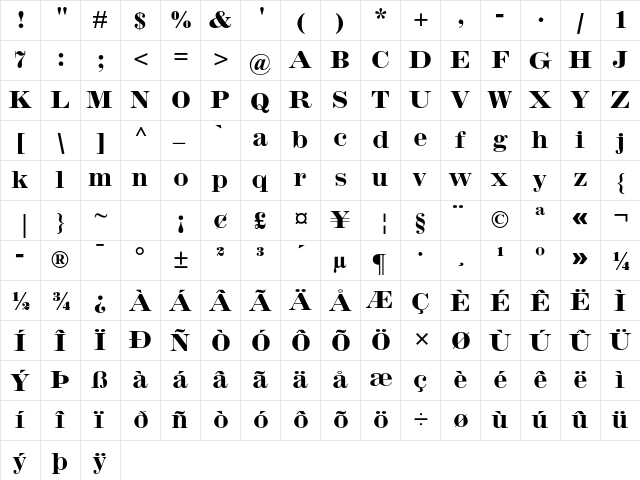
Inflex MT Std Bold Font Preview
Inflex MT Std Bold
Design Context for Inflex MT Std Typeface
Inflex MT Std takes a measured approach to typography — its balanced proportions and neutral character make it a reliable workhorse for both digital and print work. Its bold stroke weight gives it real presence on the page.